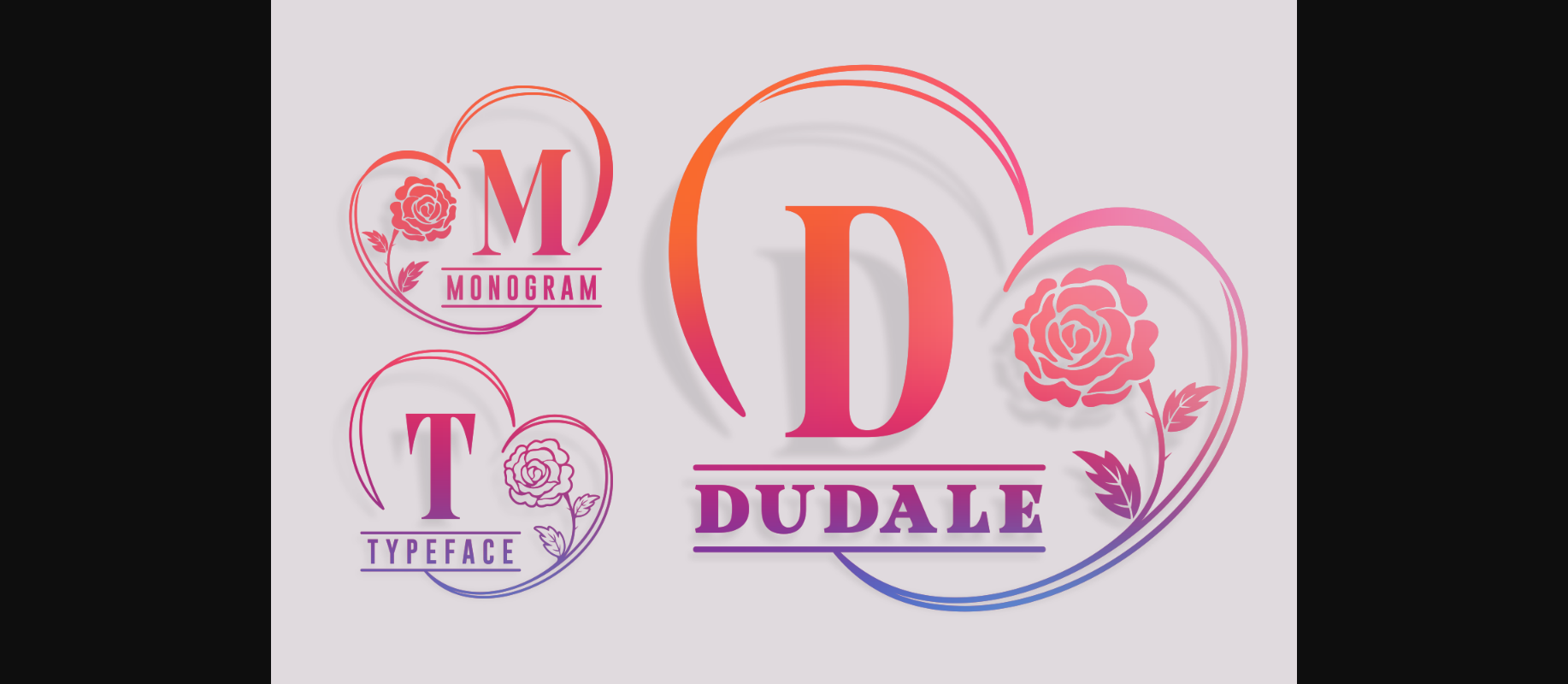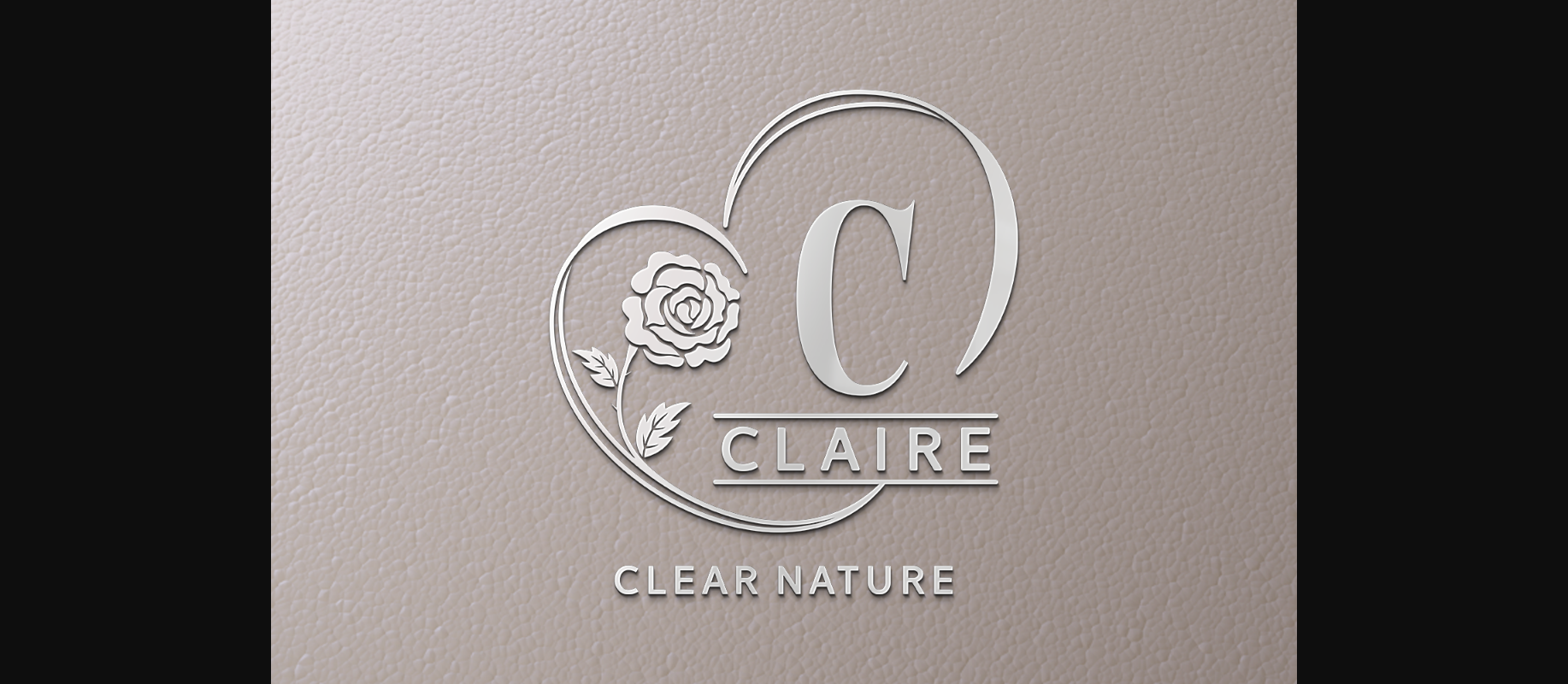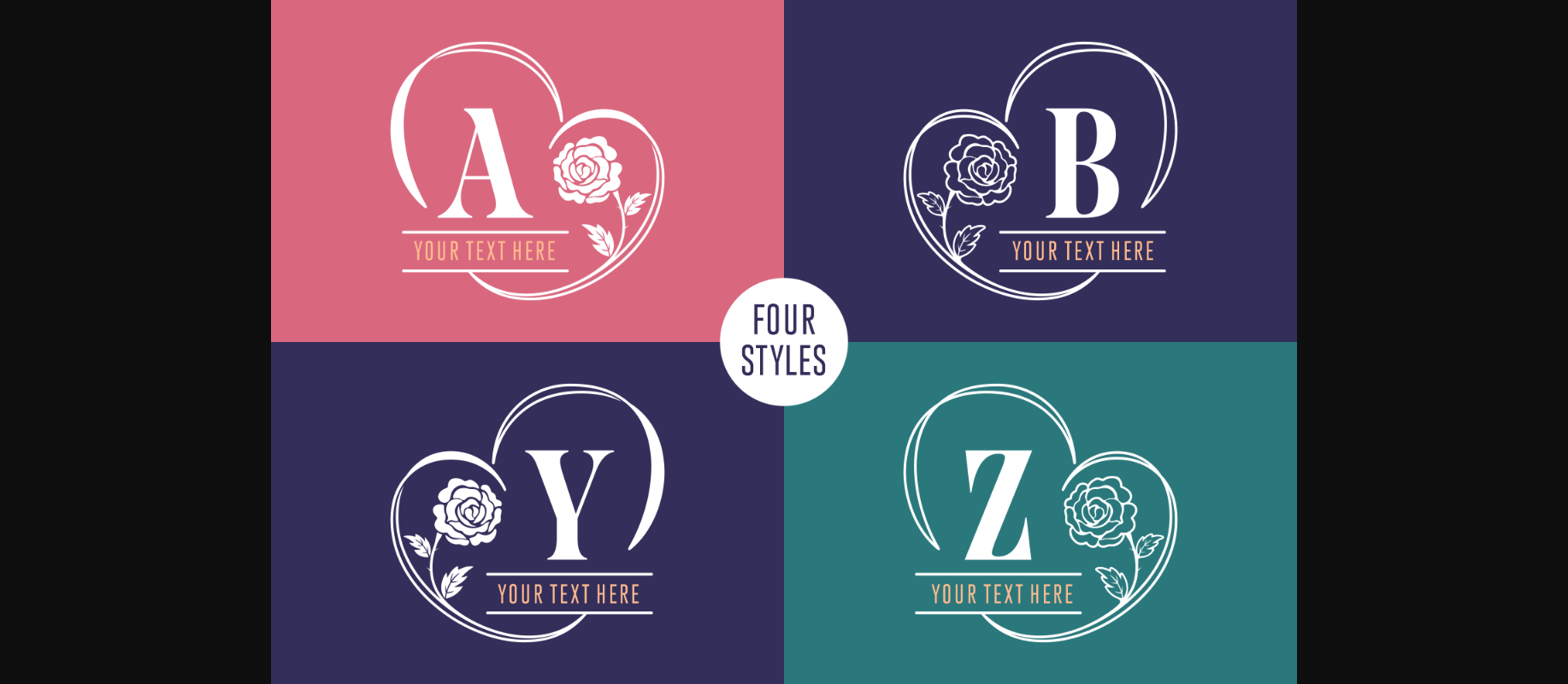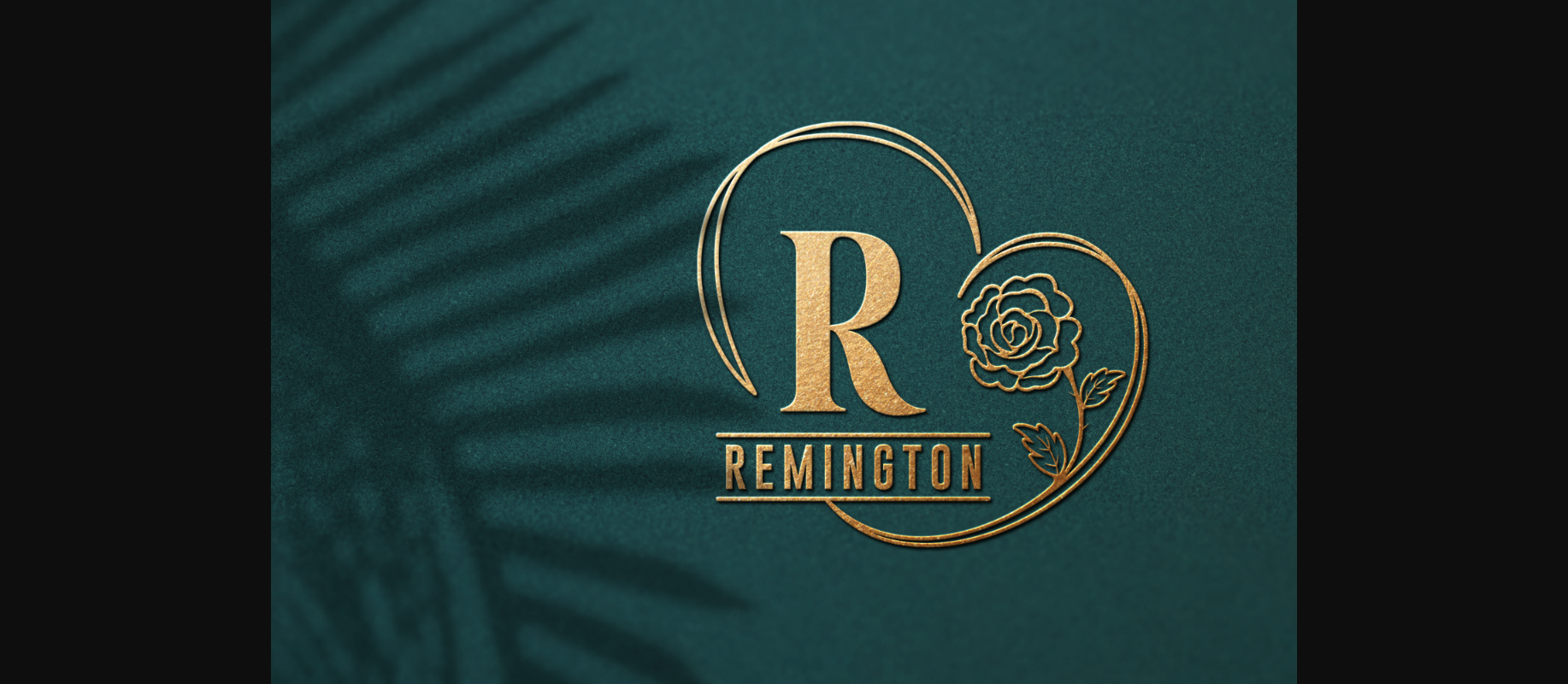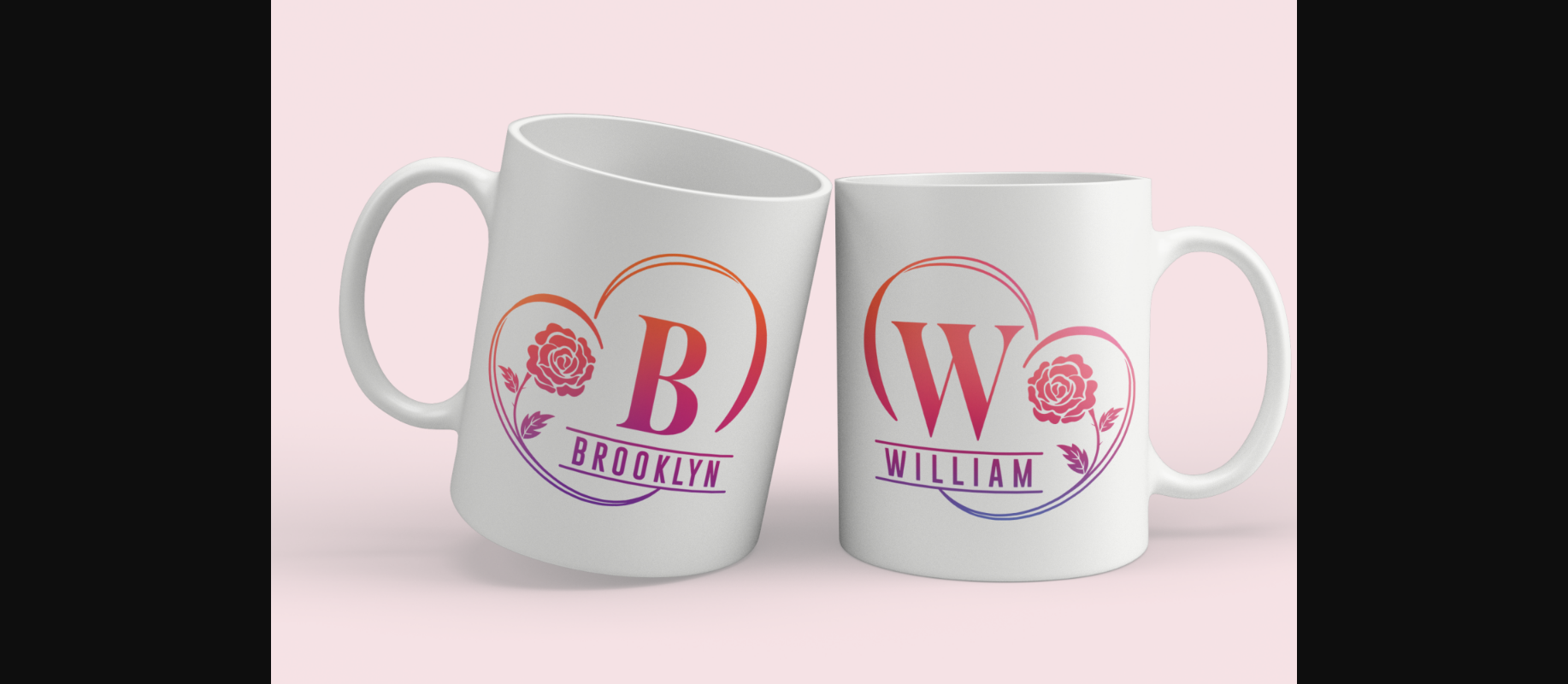
About Dudale Font
Dudale is a distinct, beautiful and exquisite decorative font. It is PUA encoded which means you can access all of the glyphs and swashes with ease!
Fall in love with Dudale’s incredibly versatile style and use it to create spectacular designs!